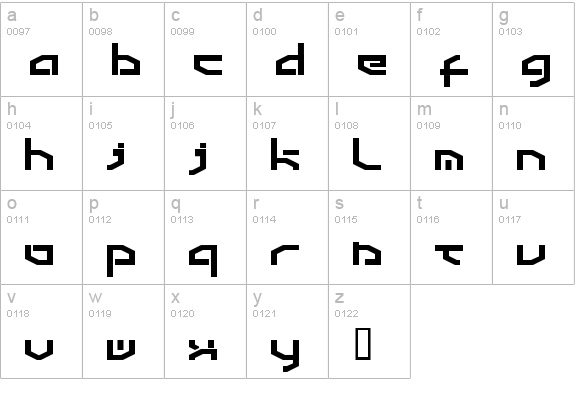
Detroit 3k Font Details
Detroit 3k font is a modern and sleek typeface that exudes a futuristic vibe with its sharp lines and geometric shapes. This font is perfect for creating eye-catching designs for tech-related projects, branding, and posters. With its edgy and bold appearance, Detroit 3k font adds a touch of sophistication to any design. Best of all, Detroit 3k font is completely free to download at FontsMarket.com. Whether you're a graphic designer, artist, or enthusiast looking to enhance your projects with a cutting-edge font, Detroit 3k is the perfect choice. Download this striking font today and take your designs to the next level!